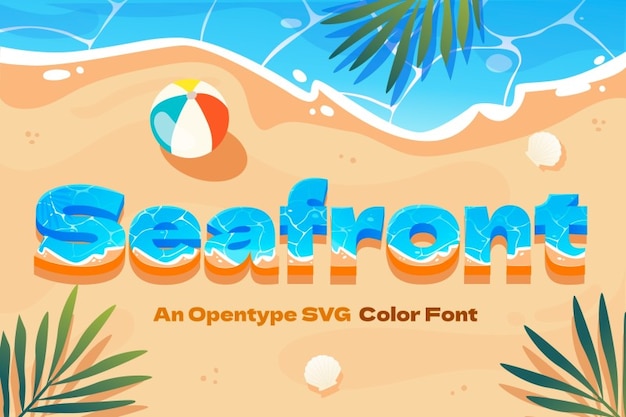
"Seafront" font echoes the tranquility of the ocean's edge, capturing the essence of a summer day by the beach. With flowing letters reminiscent of gentle waves, it brings a serene coastal charm to your designs. Perfect for evoking the relaxing ambiance of seaside retreats and sun-kissed memories, infusing your projects with a touch of coastal bliss.